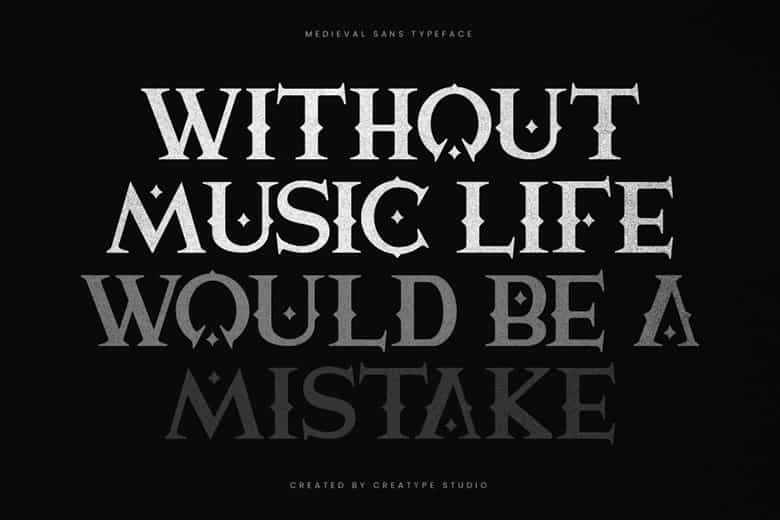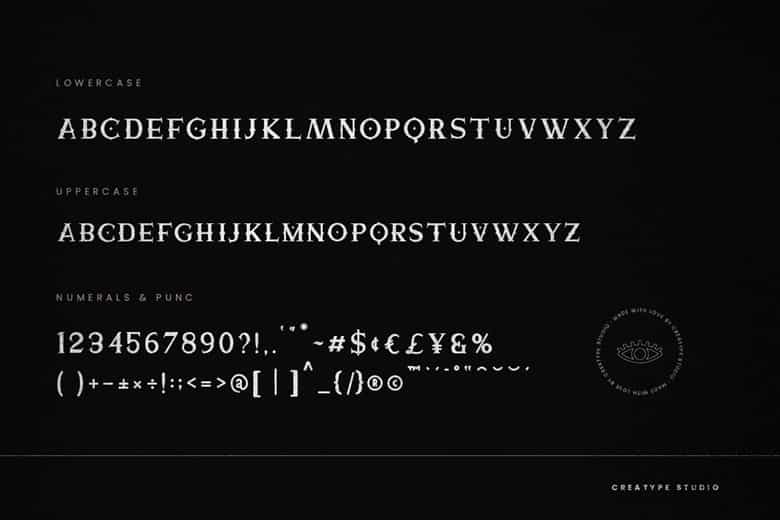
Kingvoon Font
Kingvoon is a modern serif font but has a contemporary appeal. This what makes for a font that is sincerely made with much detail and this font is simply perfect and very easy to work with. In the design of this font, inspiration was driven from the mind bending year 1965 from the renowned mass movement called Psychedelic, which is why this font will befit your large projects.